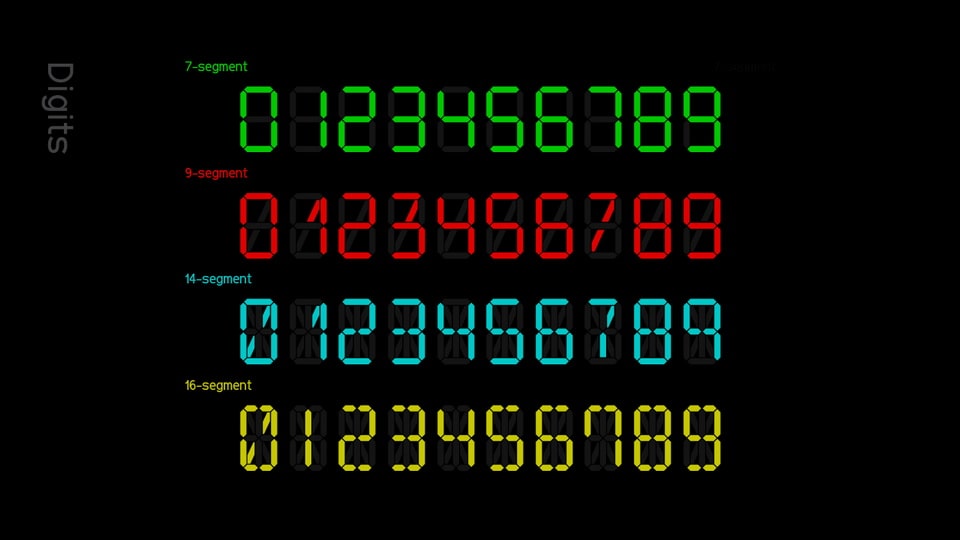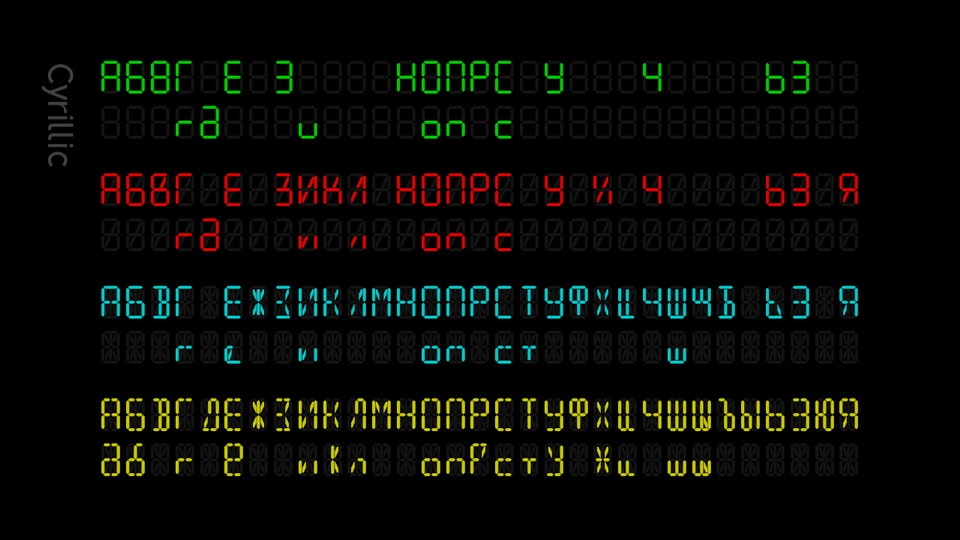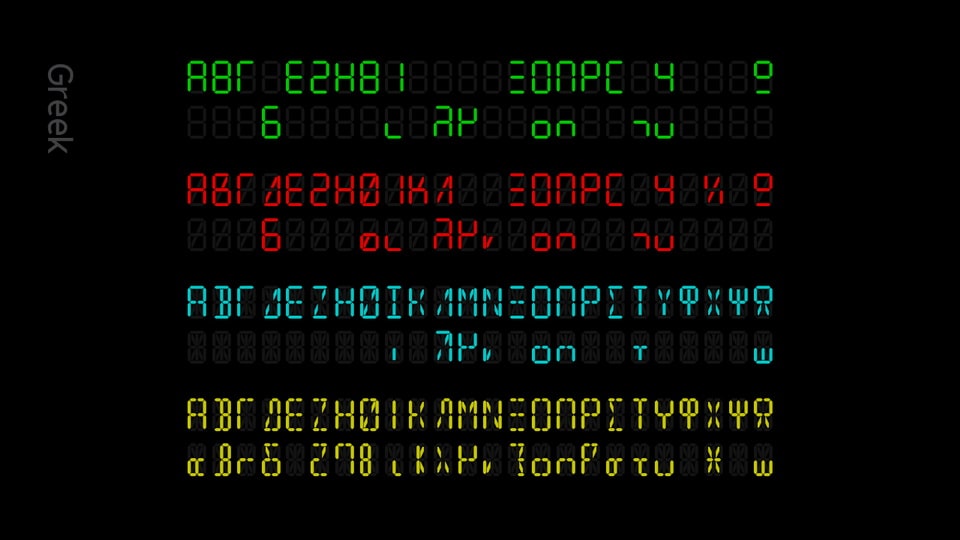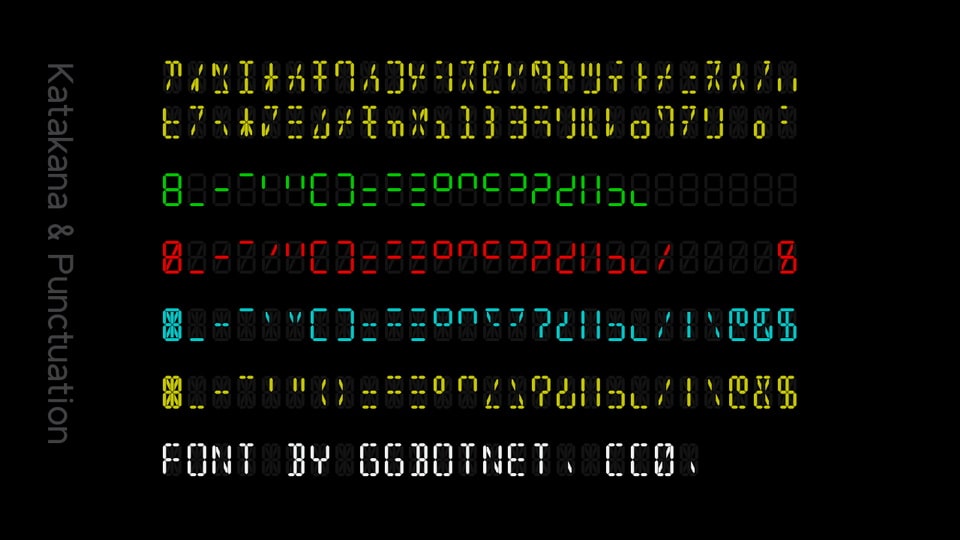
Digit Tech is a display typeface that offers two styles, regular and italic, and a range of options including 7-, 9-, 14-, and 16-segment. The fonts have a consistent grid size, allowing for seamless switching between them. Additionally, the font supports four writing systems: Latin, Cyrillic, Greek, and Katakana (16-segment only).
Digit Tech is designed for precision and clarity, ensuring optimal readability in various digital contexts. The modular design allows each segment to form cohesive and legible numerals, making it an ideal choice for electronic displays, digital clocks, signage, and any application requiring numerical representation.
The font’s adaptability shines through in its different segment variations. The 7-segment option is sleek and minimal, perfect for compact displays, while the 16-segment version provides a high level of detail for more intricate designs. The 9- and 14-segment options offer a balanced middle ground, catering to a range of visual preferences.
With Digit Tech designers have the power to customize digital displays with a font that adapts effortlessly to diverse specifications, providing unparalleled flexibility for digital applications.